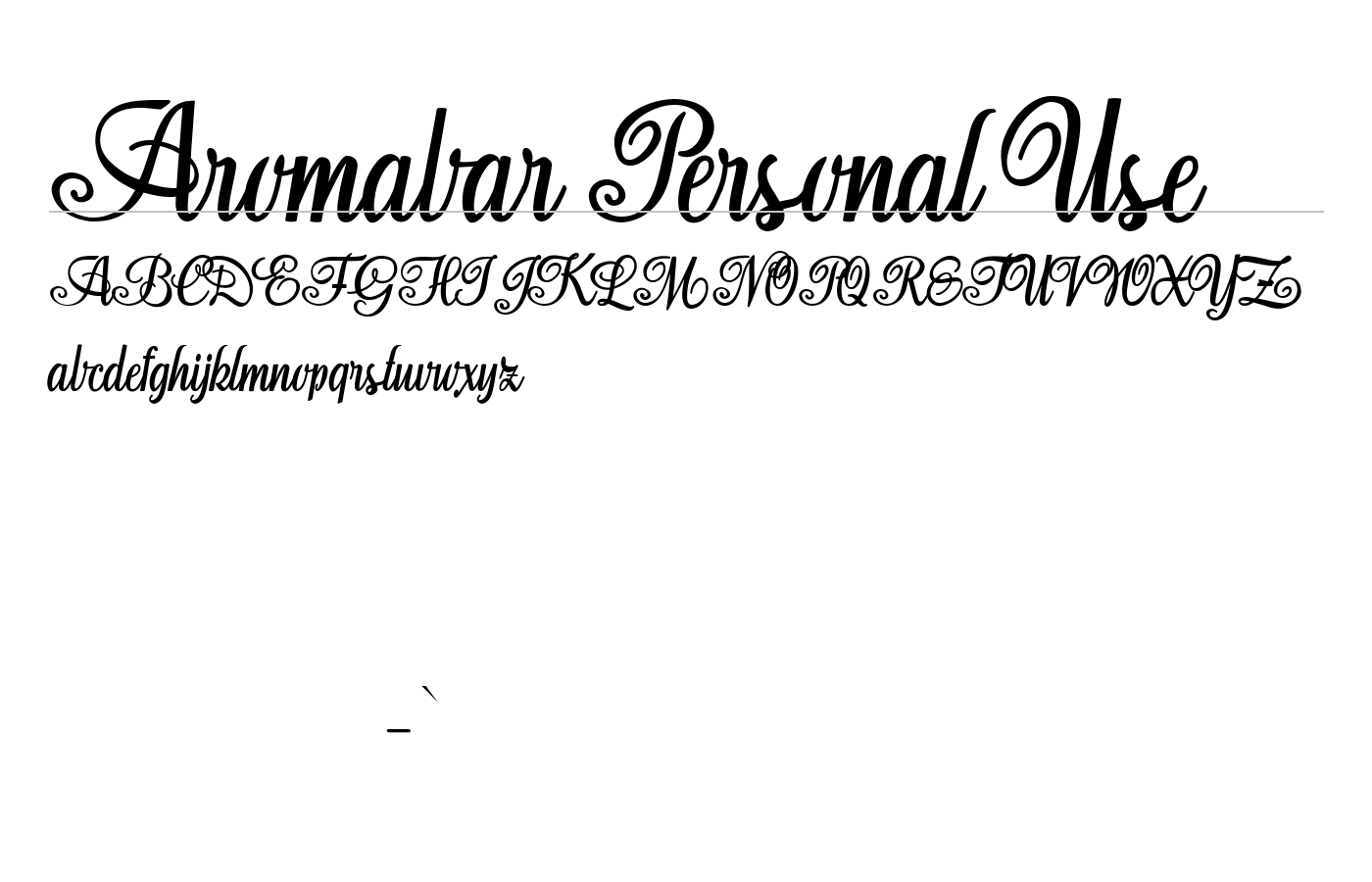
Aromabar Personal Use is a stylish script font that blends elegant swashes with refined, slender letterforms, creating a charming and sophisticated appearance. Its moderate contrast and smooth curves make it ideal for invitations, branding, and decorative headlines where a touch of classic romance and personality is desired. This font works beautifully for projects that need a graceful yet readable script with a playful, vintage-inspired flair.
Aromabar Personal Use Font
About Aromabar Personal Use Font